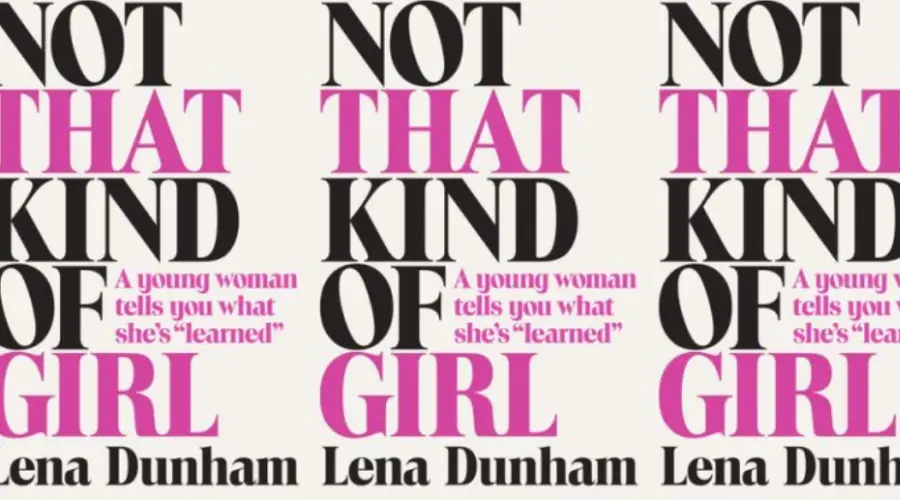
”Not That Kind of Girl: A Young Woman Tells You What She’s ‘Learned'” is a memoir by Lena Dunham, published in 2014. The book’s cover features a distinctive, high-contrast serif typeface reminiscent of the 1970s, specifically resembling the Toledo Extra Bold font.
If you’re seeking fonts similar to Toledo ExtraBold, consider the following options:
Toledo Extra Bold TypeShop Collection The closest match with its bold serif design.